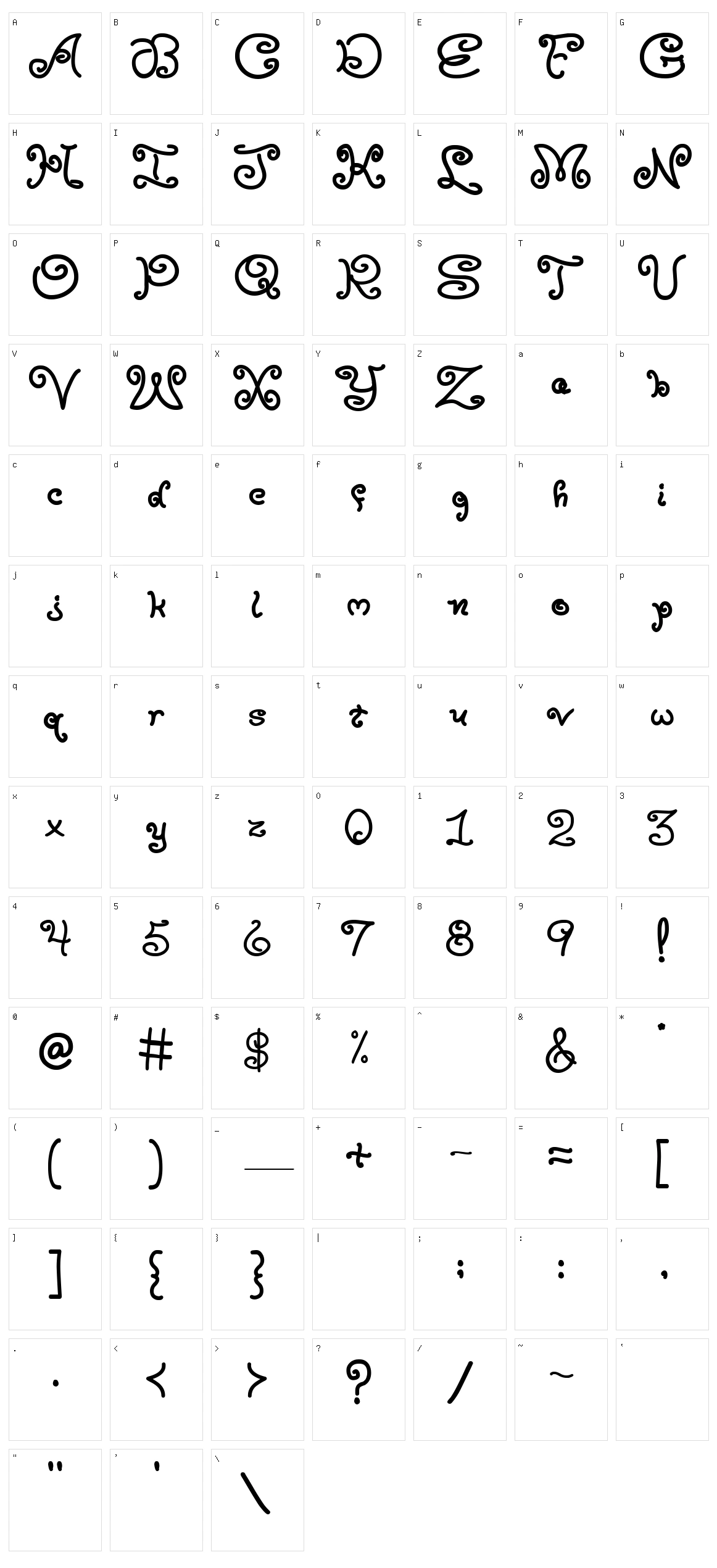
The free font Moxy Roxie is carefully designed by PIP-Type, showcasing a thoughtful balance of creativity and usability and falls under the Script font style. When you download the ZIP file, it contains only 43.41 KB of font files, making it lightweight and quick to download. Please review the license details below to understand permitted usage and distribution rights. If license information is not available, we recommend using this font for personal projects only or contacting the author directly for commercial usage permissions.